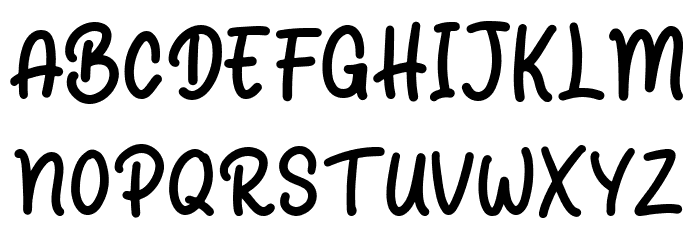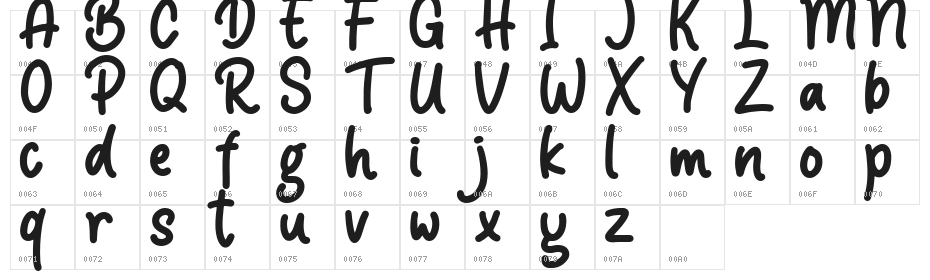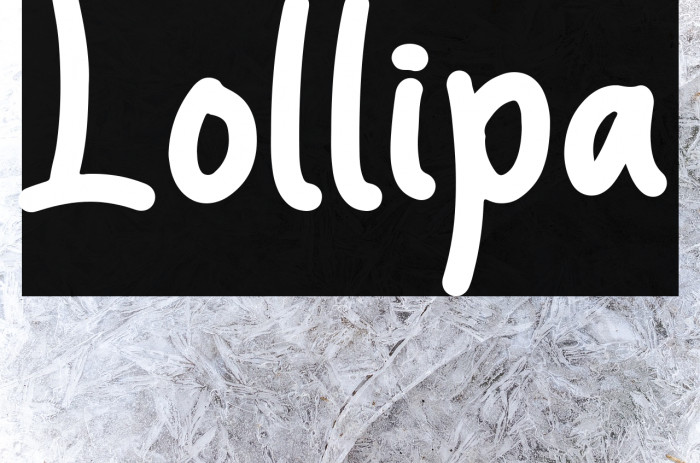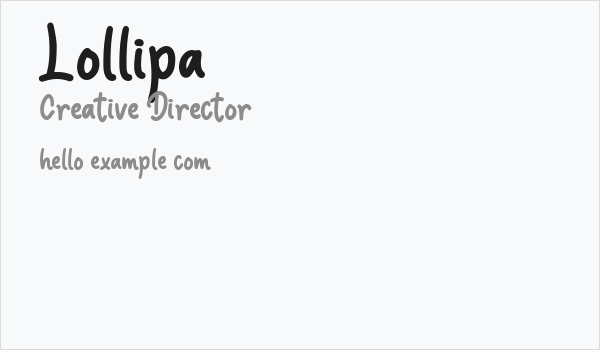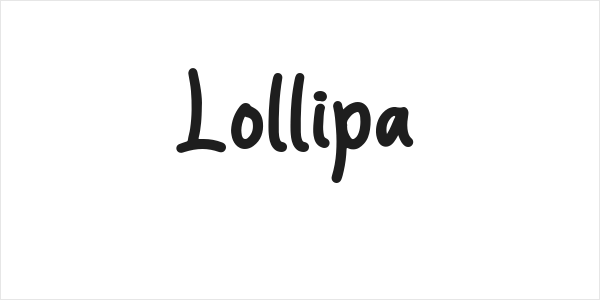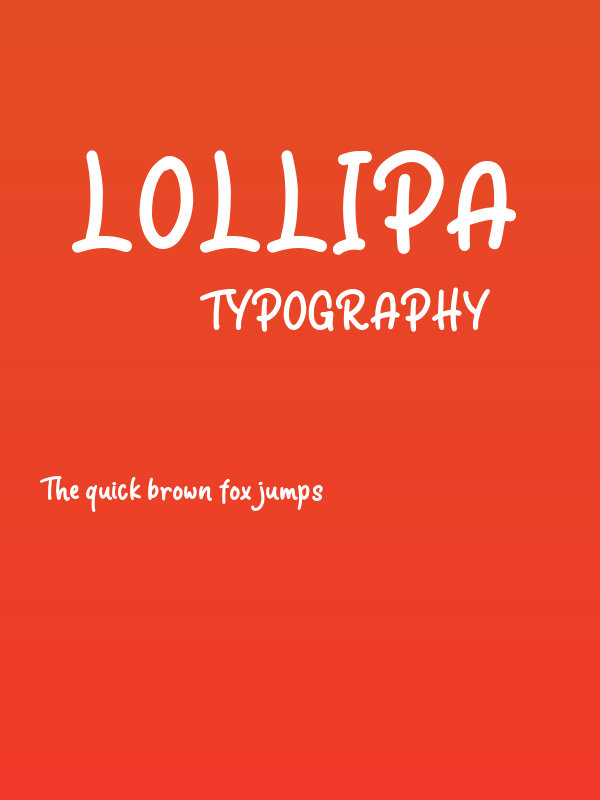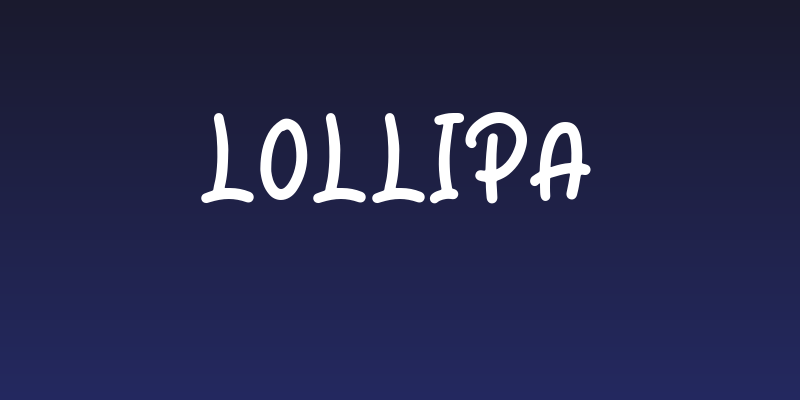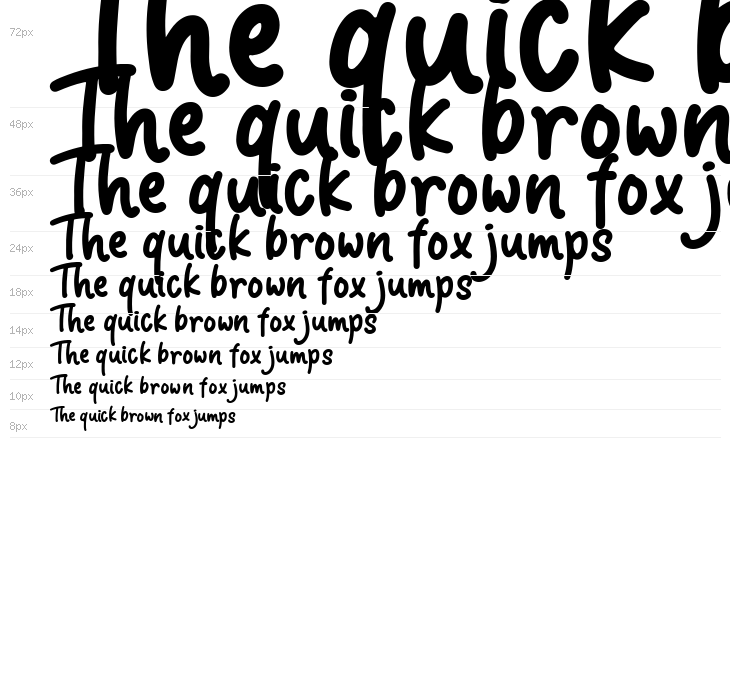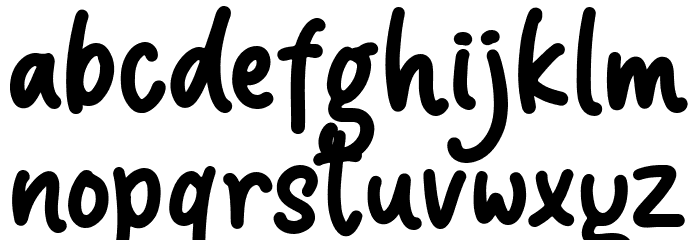
Lollipa Font
Lollipa Description
This playful and whimsical font features rounded, bold characters with a handwritten style. The letters have a consistent stroke width, giving them a friendly and approachable appearance. The uppercase and lowercase letters maintain a uniform height, with slight variations in the curves and loops that add a touch of personality. The numbers and special characters are designed to match the overall style, ensuring a cohesive look across all text. This font's casual and informal vibe makes it suitable for creative and fun projects.